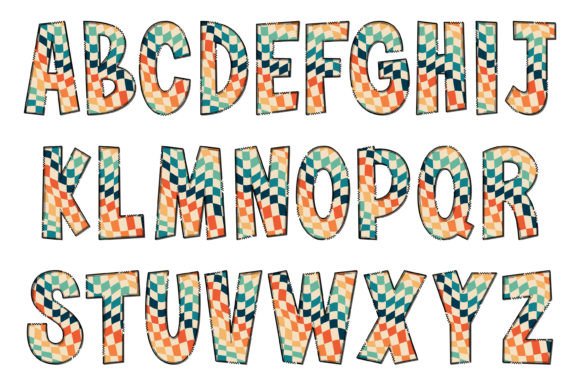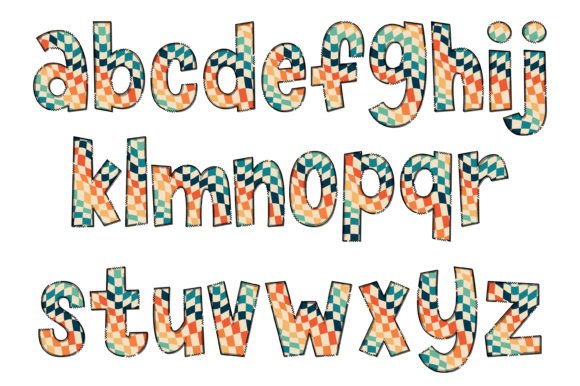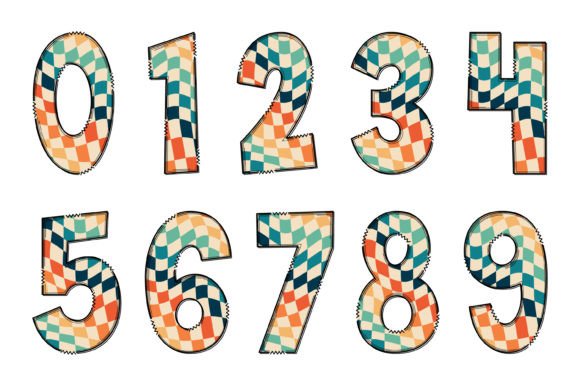
Unleash the Playfulness of Your Designs
Have you ever been brainstorming a creative project, and suddenly, a burst of inspiration hits you? Maybe it’s a quirky idea, a colorful palette, or a unique font that instantly sparks joy. For designers, this moment is what drives us to push the boundaries of creativity. And, for many of us, it’s the perfect time to introduce a touch of whimsy to our work.
Enter the Checkerboard Font, a delightful and nostalgic color font that’s sure to bring a smile to your face. Its classic checkerboard pattern adds a playful touch to any design, from invitations and posters to digital artwork. With Checkerboard Font, you’ll instantly elevate your projects and evoke a sense of nostalgia in your audience.
Checkerboard Font Key Features
- Font Style: Checkerboard font is a decorative font with a unique, grid-like pattern, typically used for titles and headings.
- Unique Characteristics: The checkerboard pattern is created by alternating squares of different colors, giving the font a distinctive and eye-catching appearance.
Checkerboard Font Review
Overall, I think the Checkerboard font is an interesting addition to any design project. ✨ Its unique checkerboard pattern can add a touch of playfulness and visual interest to any text-based element. It’s a great option for titles, headings, or even entire body text if you want to make a statement.
- ✨ The font’s unique pattern can add a fun and playful touch to any design.
- ✨ It’s highly legible, even at smaller font sizes.
- ✨ The font is available in a range of sizes and styles, making it easy to customize.
- ⚠️ The font’s bold lines and large x-height can make it difficult to read at very small sizes.
- ⚠️ The font may not be suitable for all types of content, such as long blocks of text or formal documents.
- ⚠️ Some users may find the font’s pattern distracting or difficult to read.
The Checkerboard font is a fun and creative option for designers looking to add some visual interest to their projects. While it may not be suitable for all types of content, it’s a great choice for titles, headings, and other design elements where you want to make a statement.
The Checkerboard Font is ideal for creating playful and eye-catching designs. Use it to add a touch of whimsy to your branding, marketing materials, or social media graphics. To get the most out of the Checkerboard Font, experiment with different font sizes, colors, and styles to create a unique look.
Remember to use the Checkerboard Font in moderation, as it can be overwhelming in large quantities. Balance it with other fonts and design elements to create a visually appealing design.